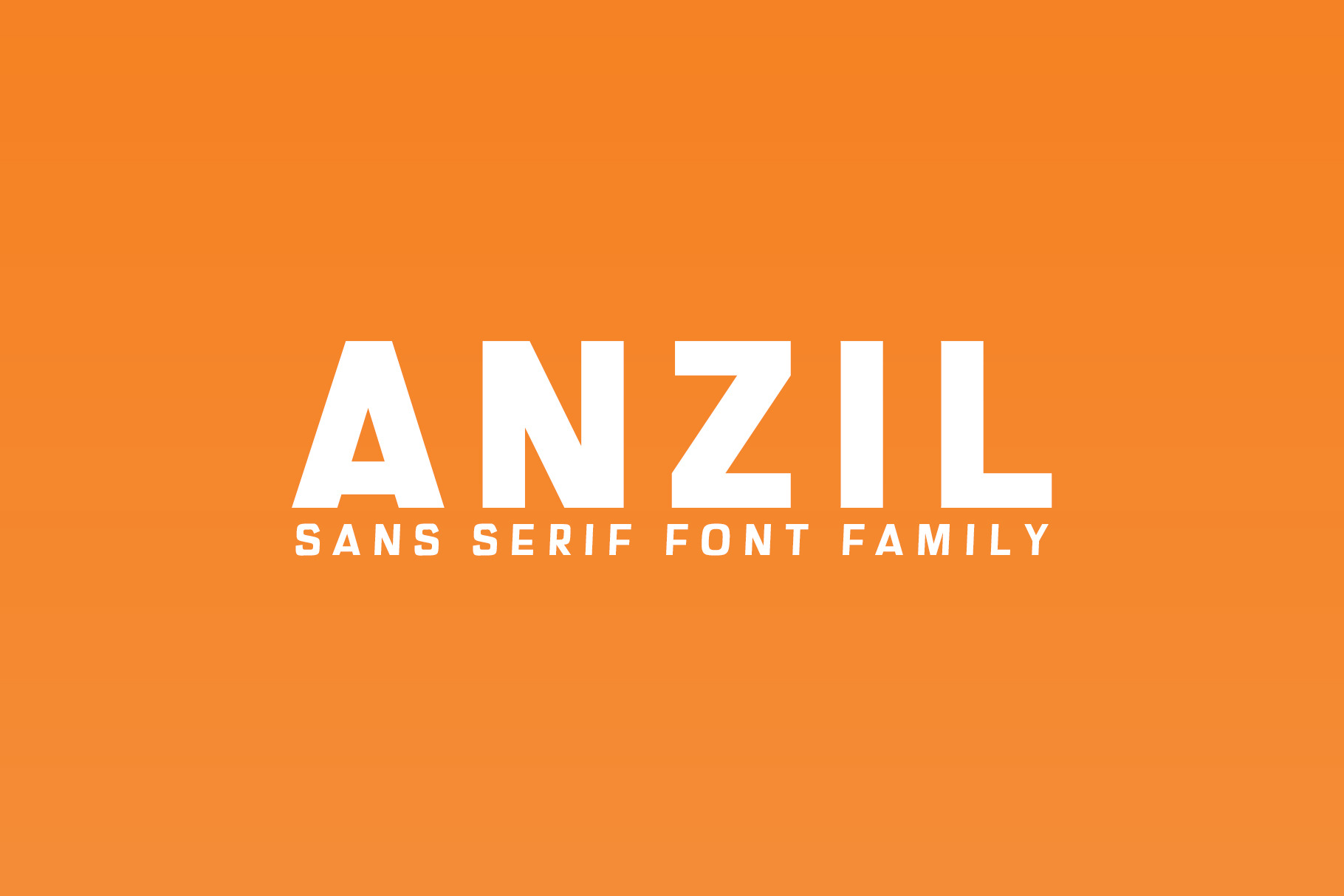
Anzil Sans Serif Font Family
Anzil Sans Serif Font is a set of 5 weights and it is good for making creative displays and it has art-deco touch. It’s a lovely and unique serif font in our store, allowing you to make each word look completely stylish! It Suits best for modern / clean designs, logos, headlines, banners and templates etc. It looks gorgeous in all caps with a wide-set spacing if you want to try a classy look, or beautiful on its own in capital and lowercase letters for something completely timeless.
- Regular, Thin, Light, Medium and Black Weights
- Uppercase Multilingual Letters
- Lowercase Multilingual Letters
- Non English Characters ( Latin Supplement + Latin Extended A)